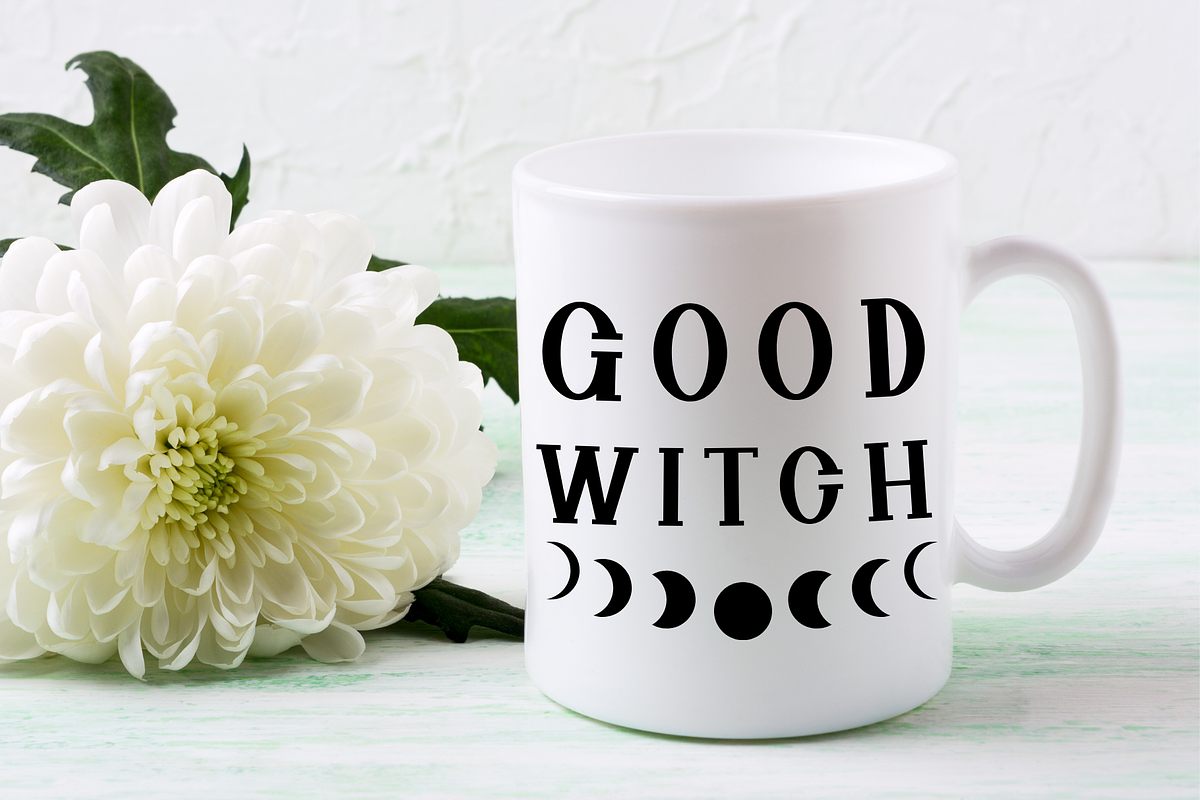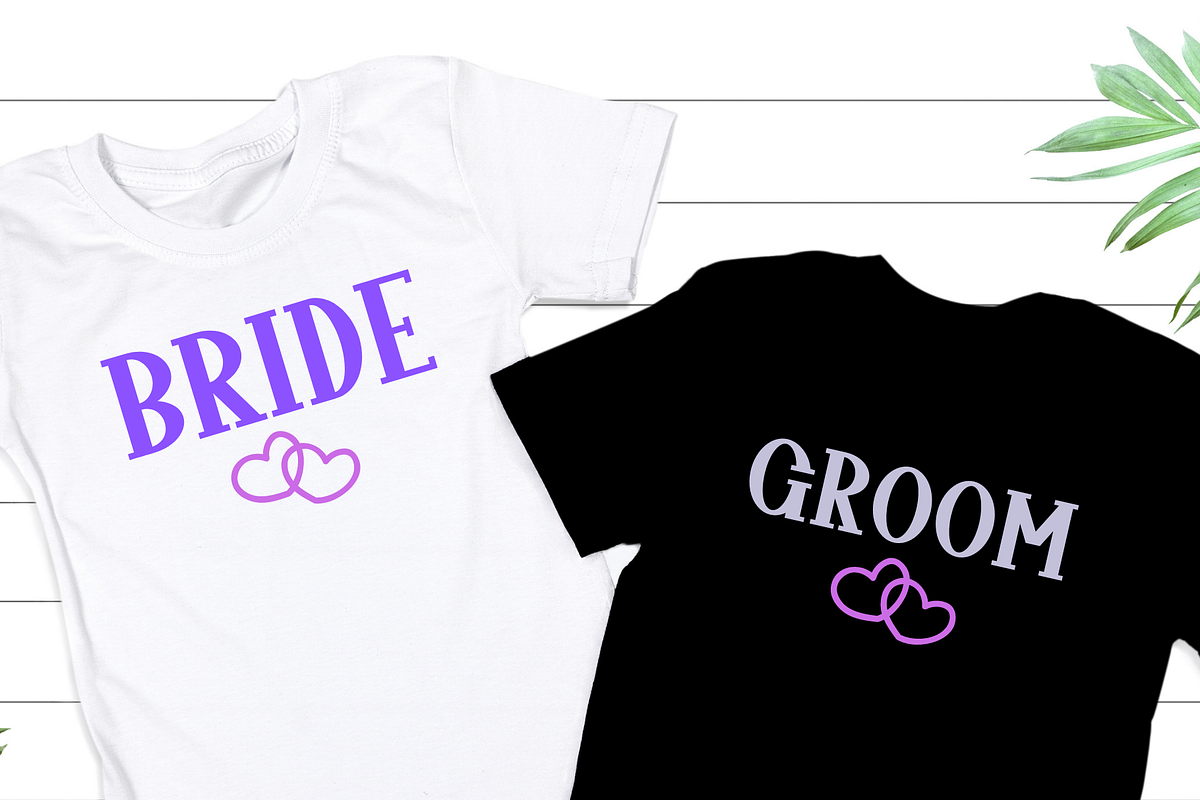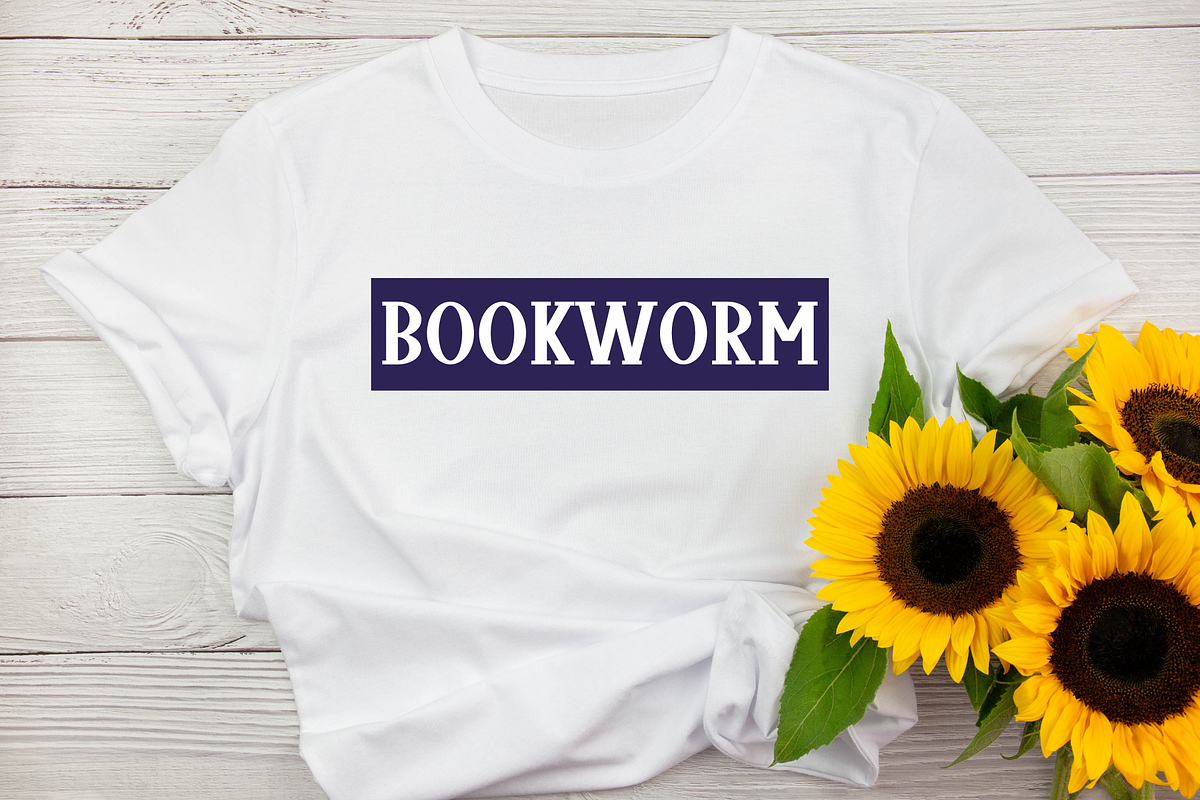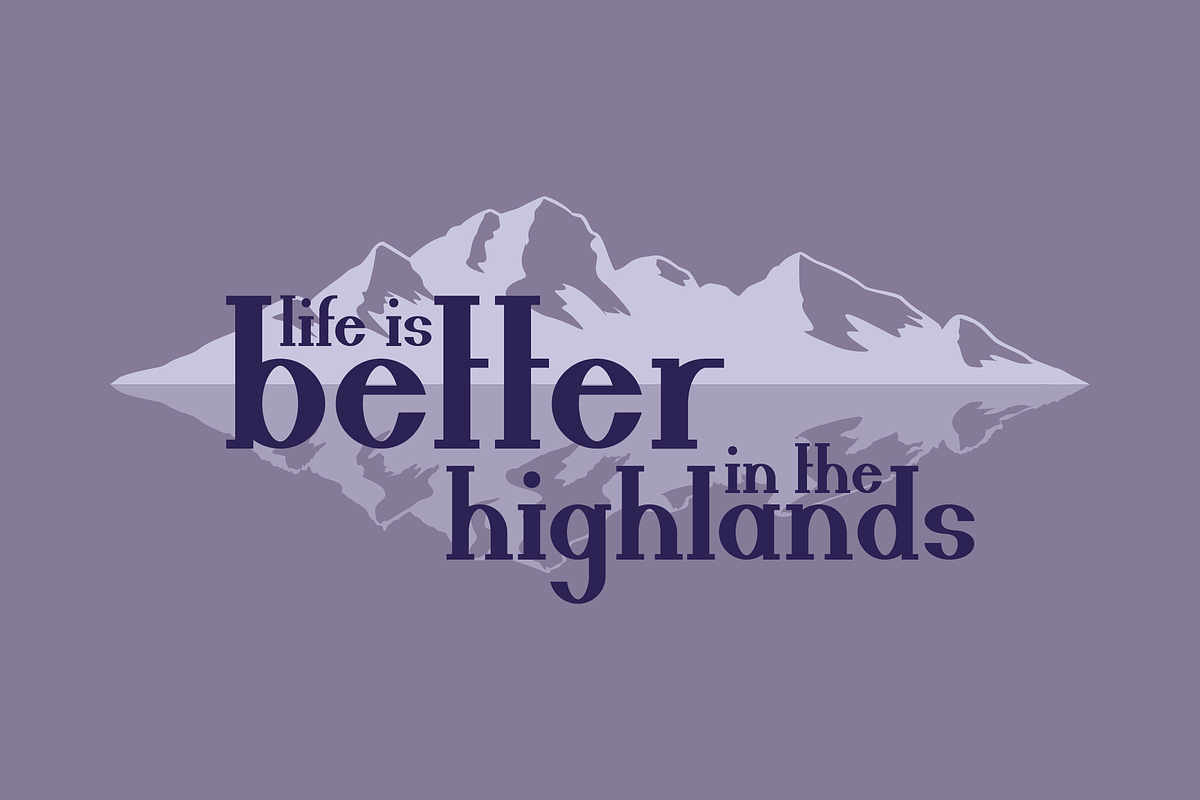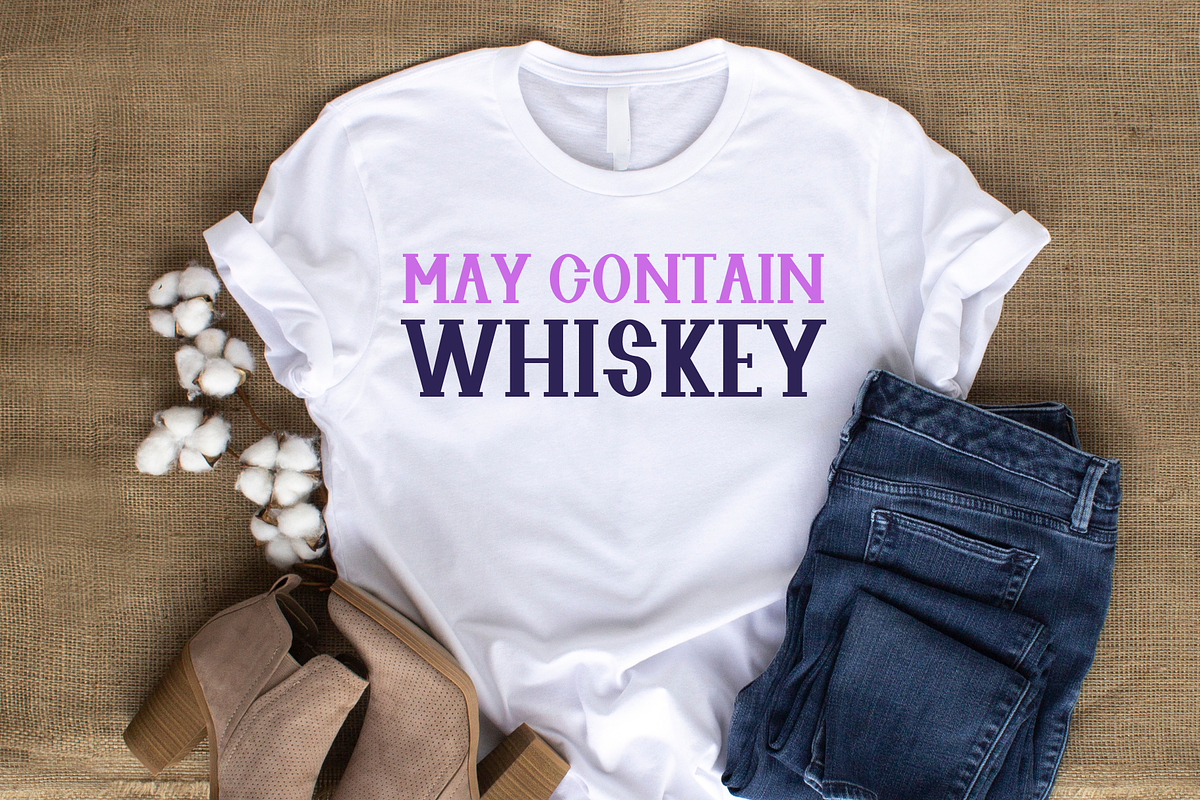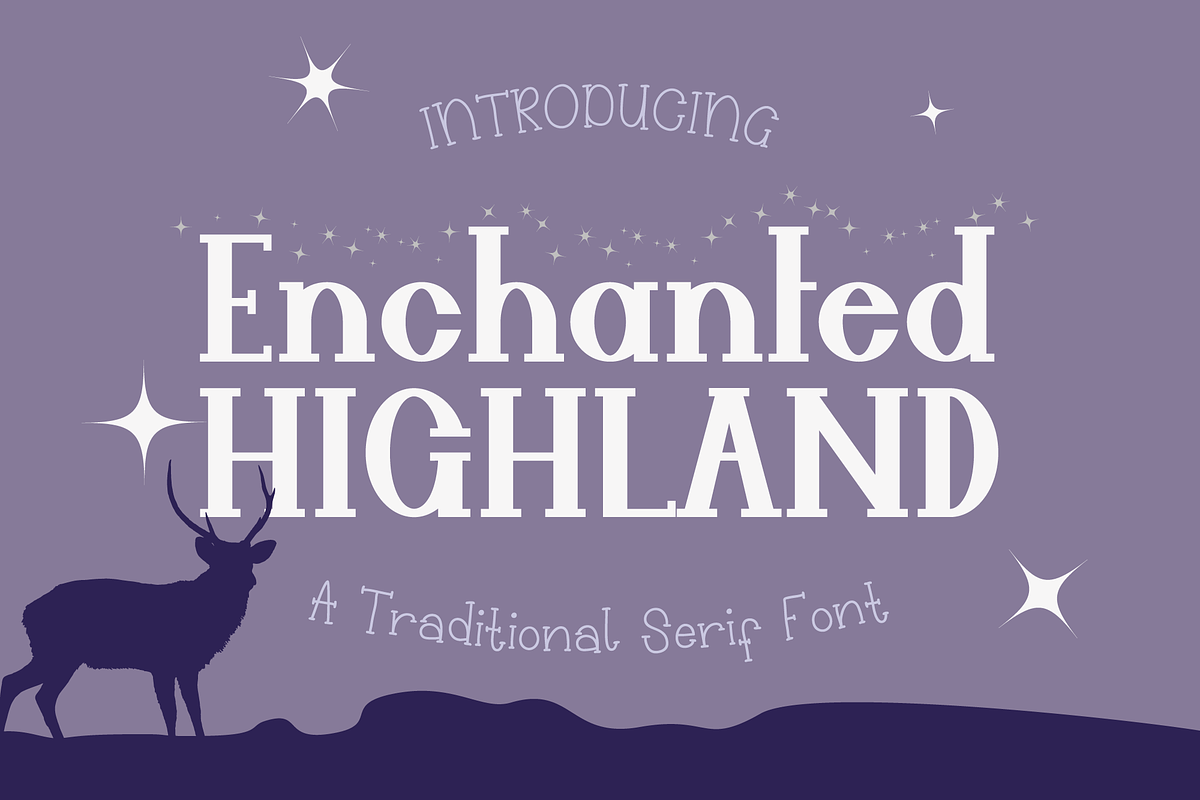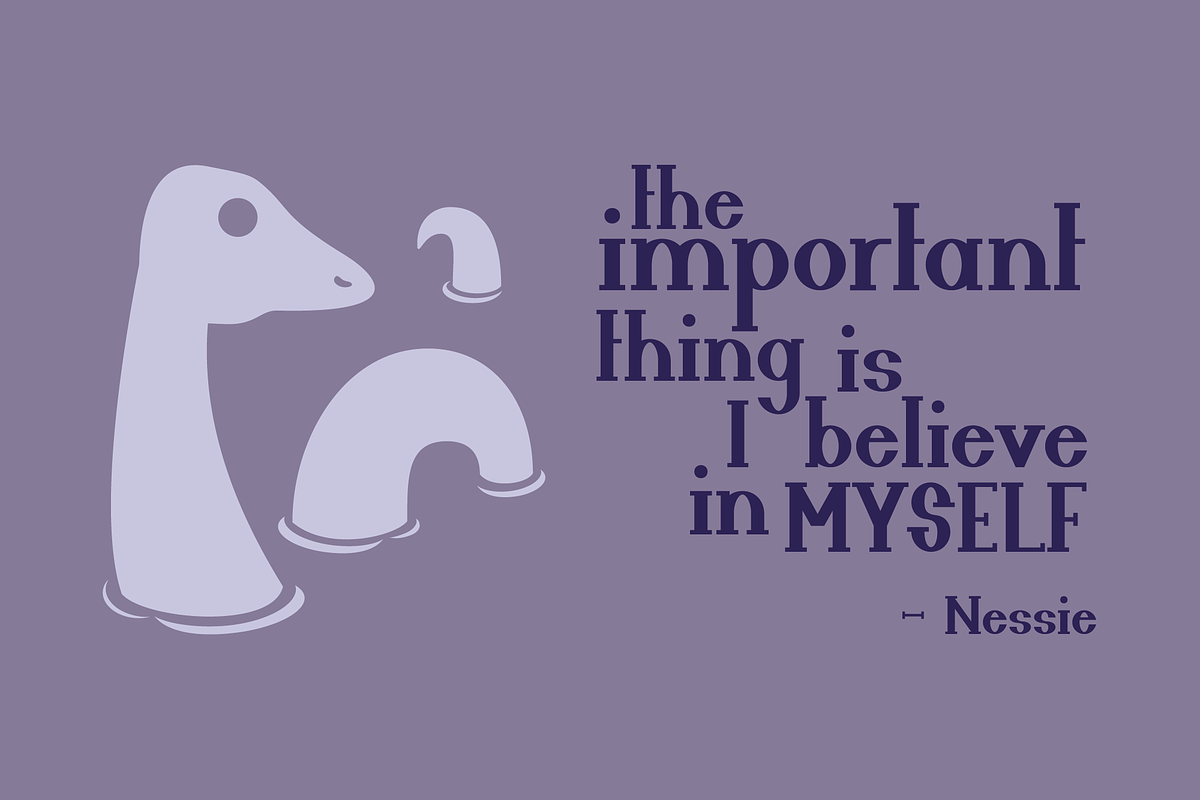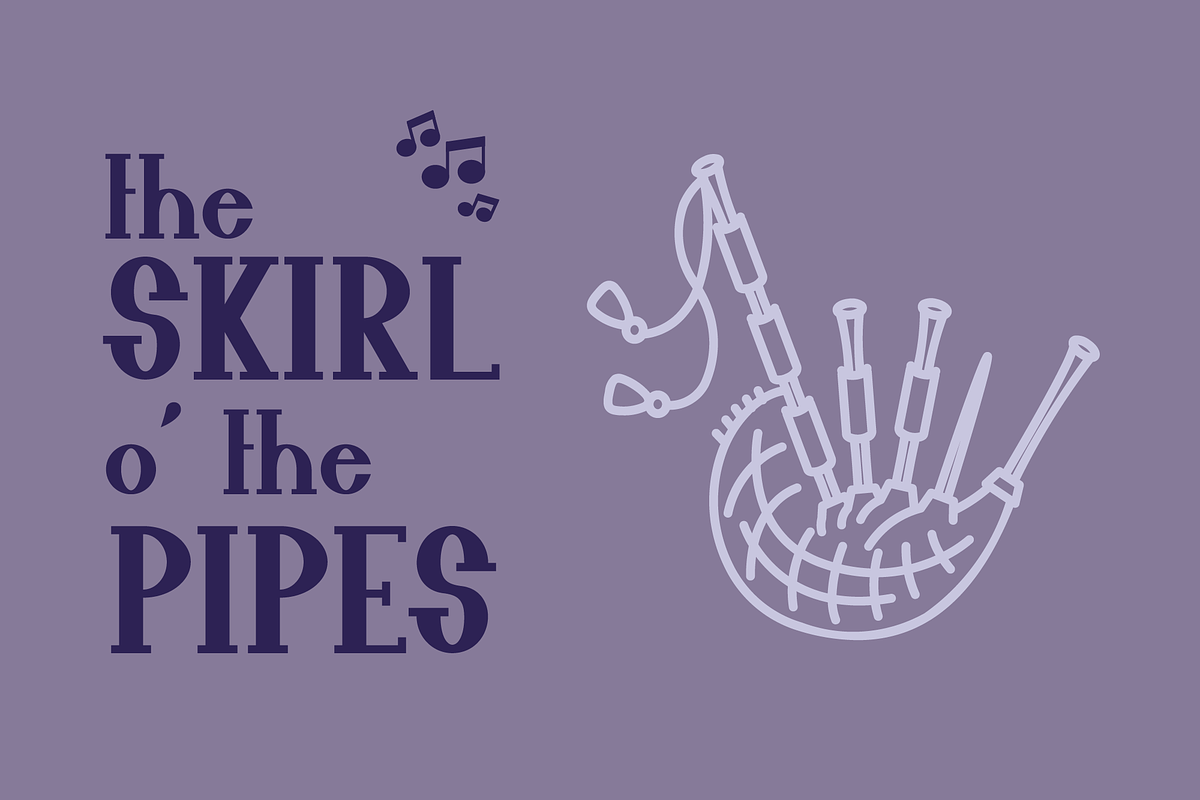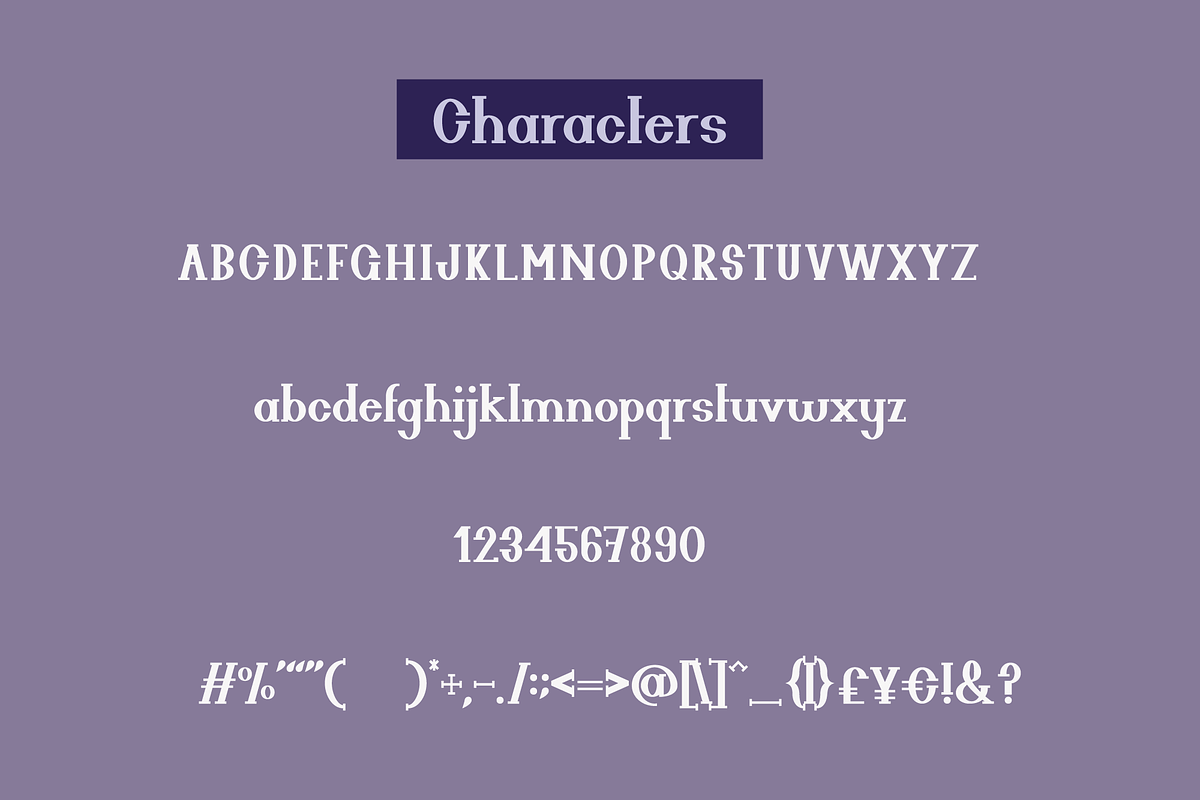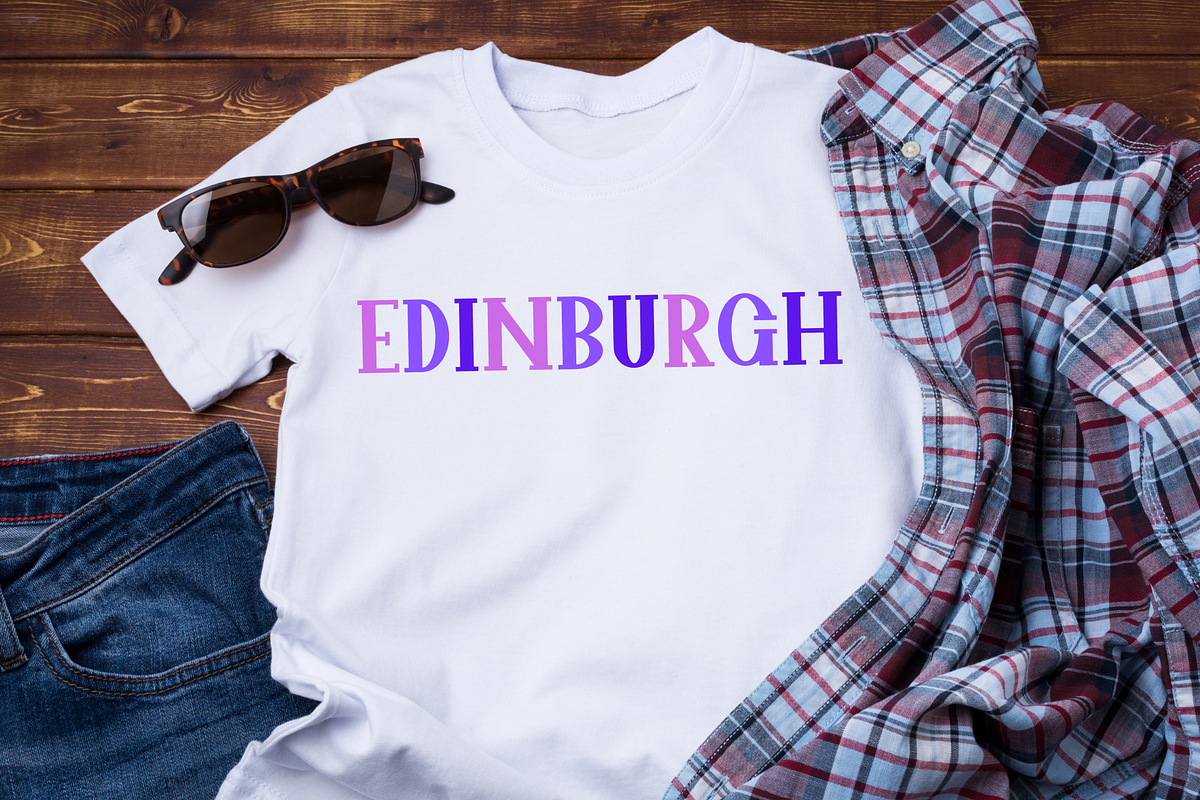
Enchanted Highland Serif Font
Introducing Enchanted Highland, an opentype font. Enchanted Highland is a serif font with a classic & elegant feel. Combining traditional style with bold lettering this font is perfect for a wide range of design styles and applications such as logo design, wedding invitations, business branding, & web design.